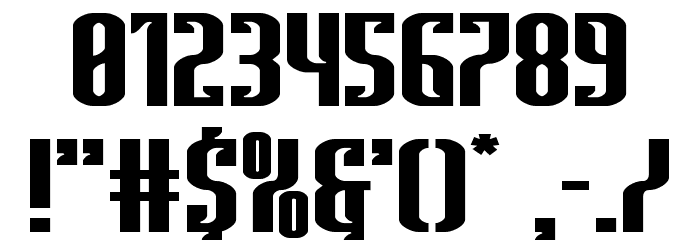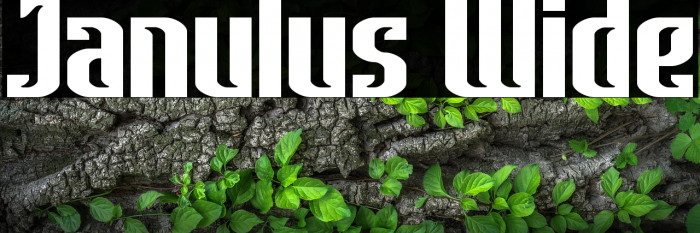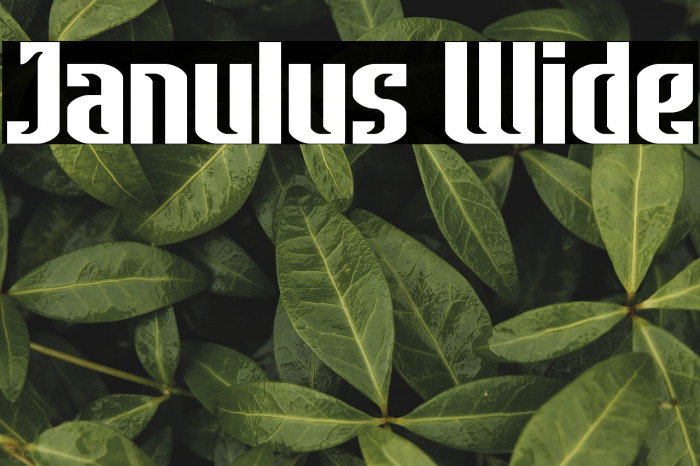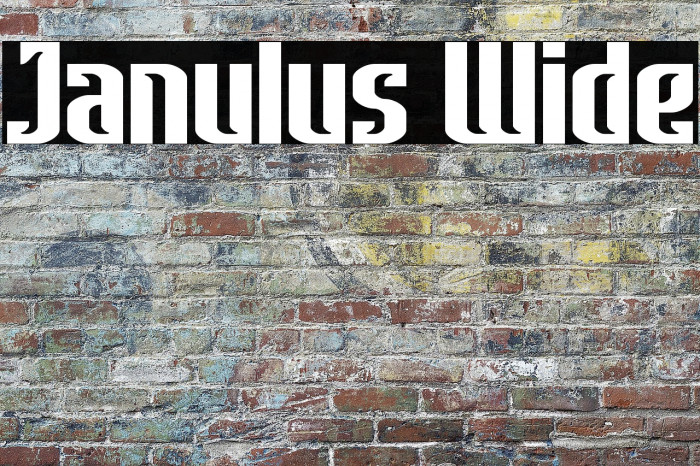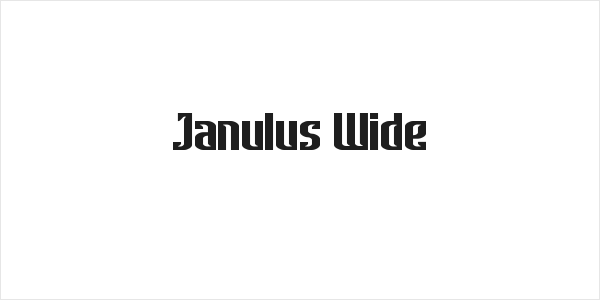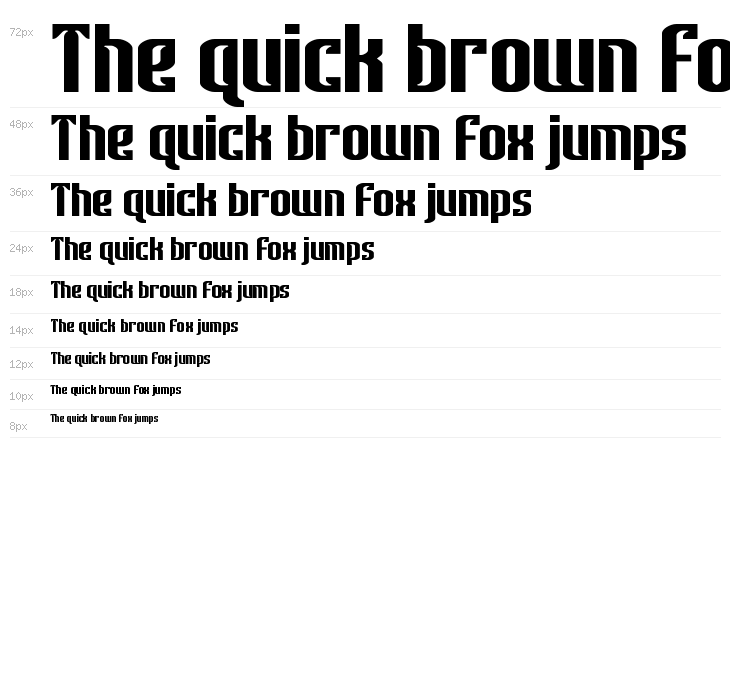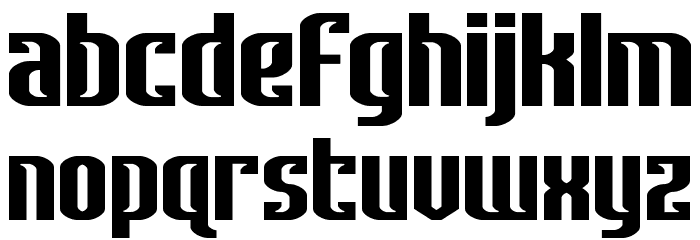
Janulus Wide Font
Janulus Wide Description
This font exhibits a bold and striking appearance with a modern twist. The characters are wide and feature a unique geometric style, characterized by sharp angles and clean lines. The uppercase letters are particularly prominent, with a strong presence that demands attention. The lowercase letters maintain the same boldness, ensuring consistency throughout the typeface. Numbers and special characters are designed to match the overall aesthetic, making them suitable for various applications. The font's design is both functional and decorative, offering versatility for creative projects.